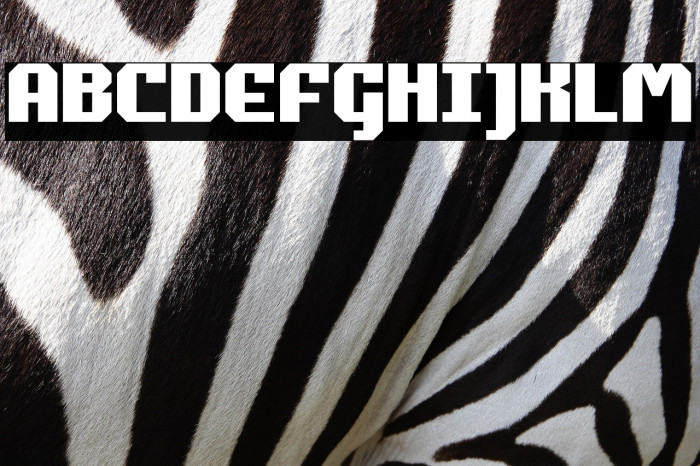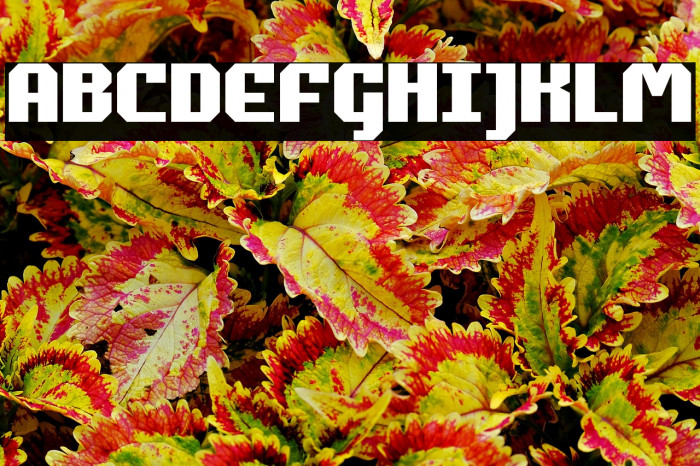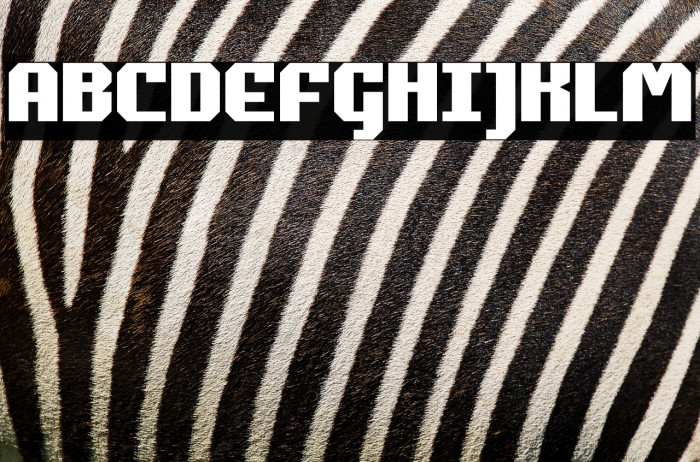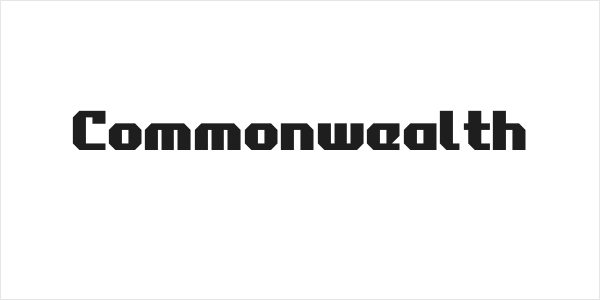
Commonwealth Font
Commonwealth Description
This font features a bold, geometric design with strong, angular lines and a modern aesthetic. The uppercase and lowercase letters maintain a consistent blocky structure, giving it a robust and impactful appearance. The numerals and special characters are crafted with the same boldness, ensuring uniformity across all glyphs. The font's style is reminiscent of digital or futuristic themes, making it suitable for projects that require a strong visual presence. Its distinct edges and lack of curves contribute to a striking and memorable look, ideal for attention-grabbing designs.
| Proposed Projects | Ideal for branding, posters, video game graphics, and any project needing a strong, modern look. |